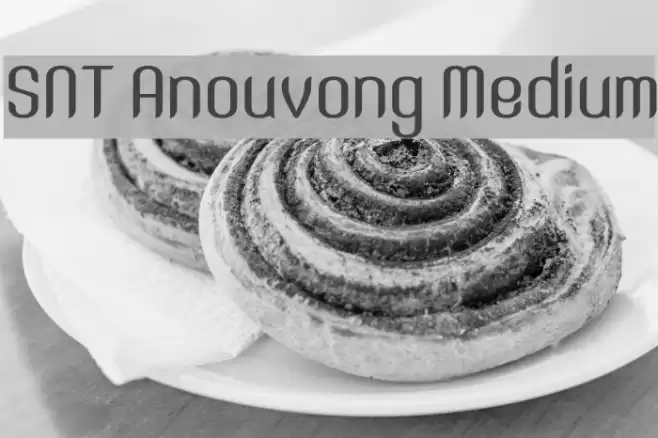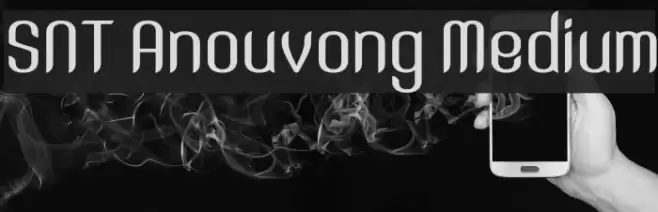
SNT Anouvong Medium Font
SNT Anouvong Medium Description
This font features a modern and sleek design with rounded edges and a geometric structure. The uppercase letters are bold and uniform, while the lowercase letters maintain a consistent height, providing a balanced appearance. The numerals are clear and easily distinguishable, complementing the overall style. Special characters are designed with the same geometric precision, making them fit seamlessly with the rest of the typeface. The font's clean lines and contemporary feel make it versatile for various design applications.
A modern, geometric font with rounded edges and a sleek design from Uncategorized fonts.
- Proposed Projects: Ideal for branding, advertising, digital media, and modern web design projects.
- Use Case: Headlines, Logos, Digital media